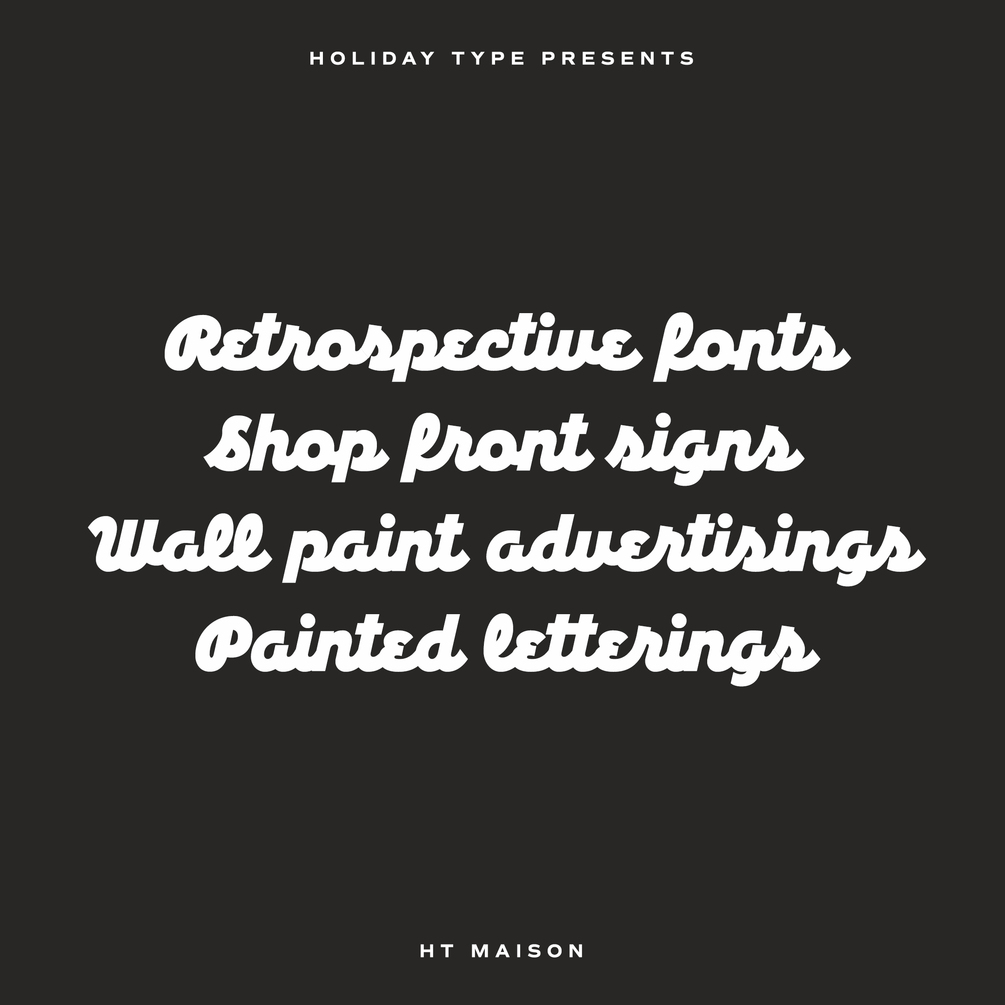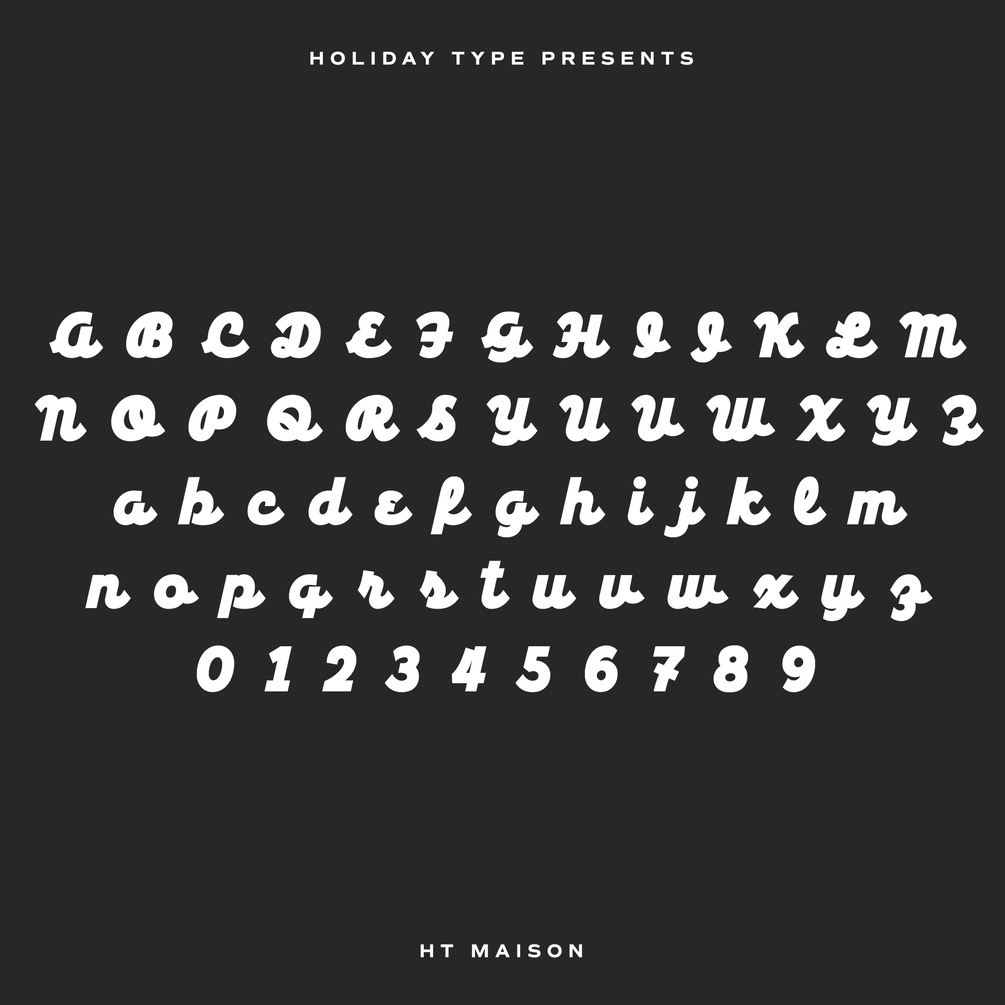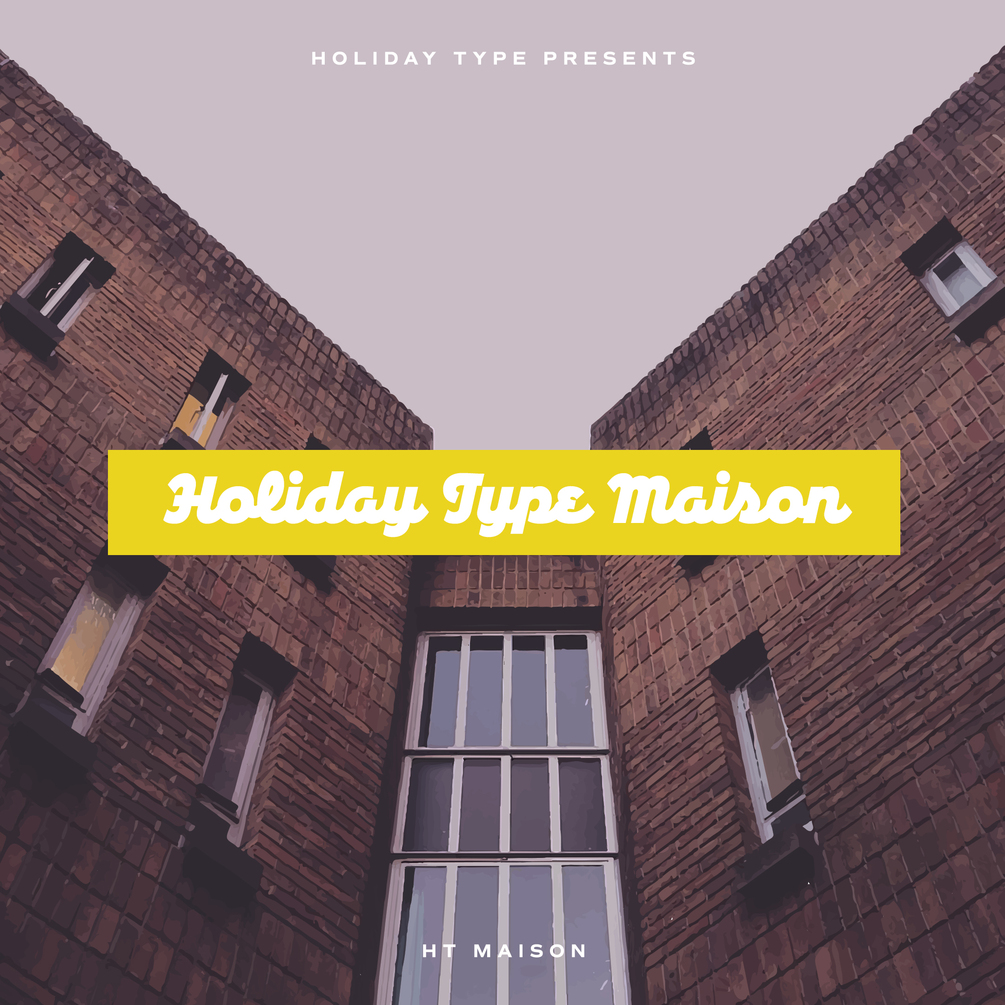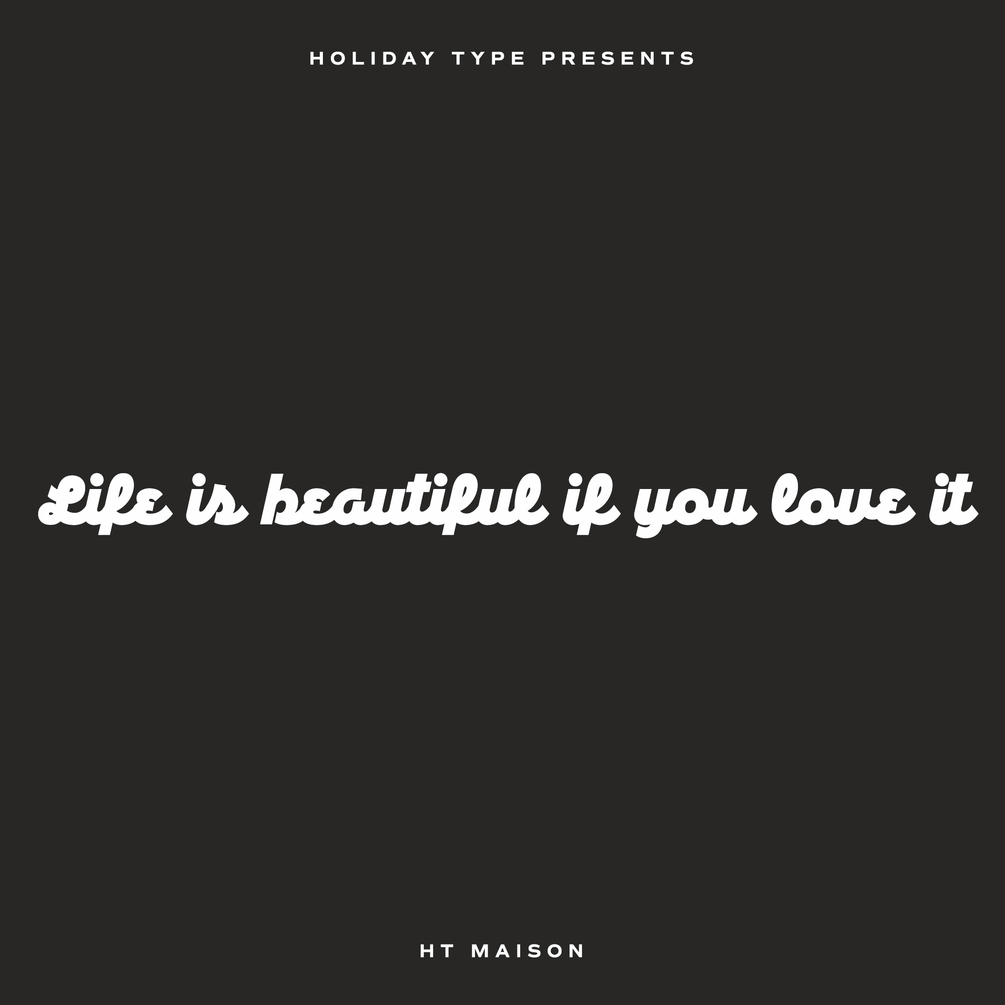
HT Maison
Retro script based on shopfront lettering, wallpaint advertisements in Italy around 1950s. HT Mason is bold and hand painting font. This font is retrospective and decent, but it is also funny and cute.